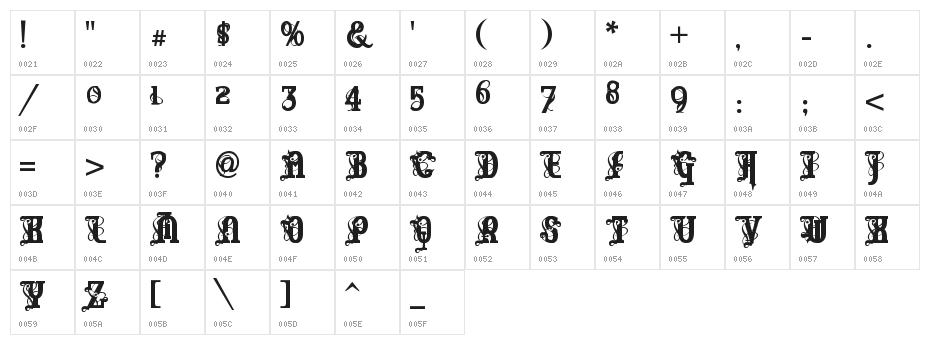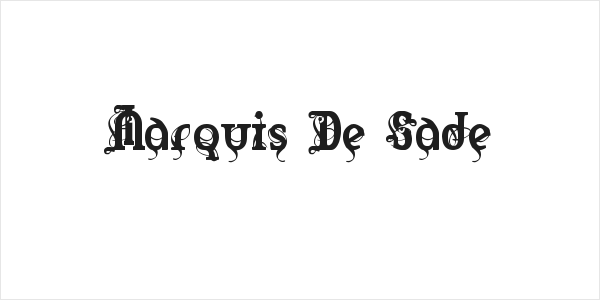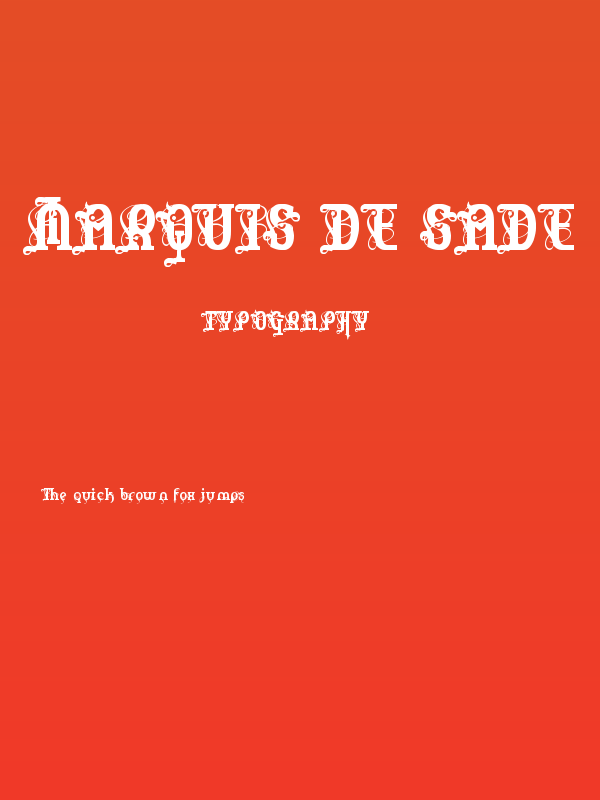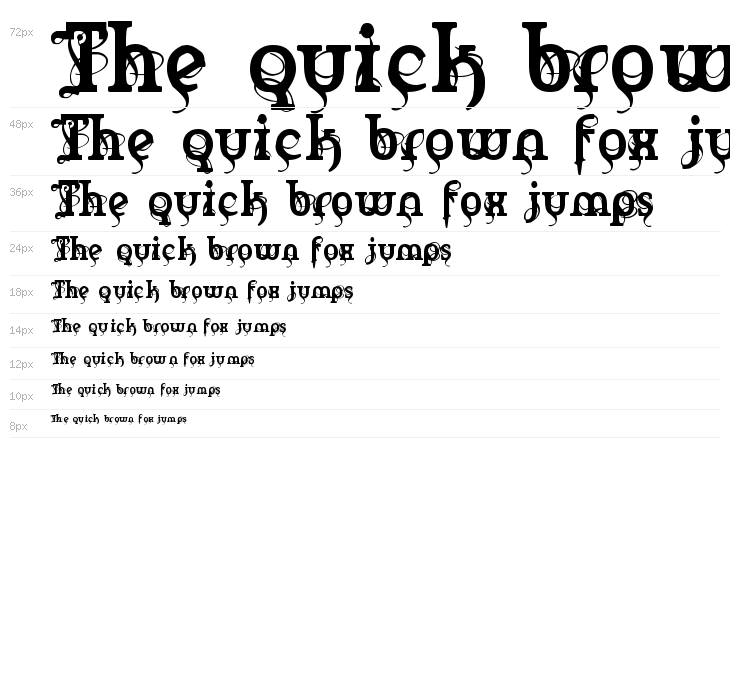
Marquis De Sade Font
Marquis De Sade Description
This font is a highly decorative and ornate typeface, characterized by its intricate and elaborate design. Each letter is adorned with flourishes and embellishments that give it a gothic and baroque appearance. The uppercase letters are particularly striking, with bold, dramatic strokes and elaborate serifs that create a sense of grandeur and elegance. The lowercase letters maintain the decorative theme, though they are slightly more subdued in their ornamentation. Numbers and special characters are equally ornate, ensuring a cohesive look across all elements. The overall style is reminiscent of historical scripts, making it ideal for projects that require a touch of vintage or classical flair.
| Overall Style | Vintage, Gothic, Decorative |
| Proposed Projects | Ideal for vintage-themed designs, book covers, posters, and branding that requires a dramatic and historical touch. |